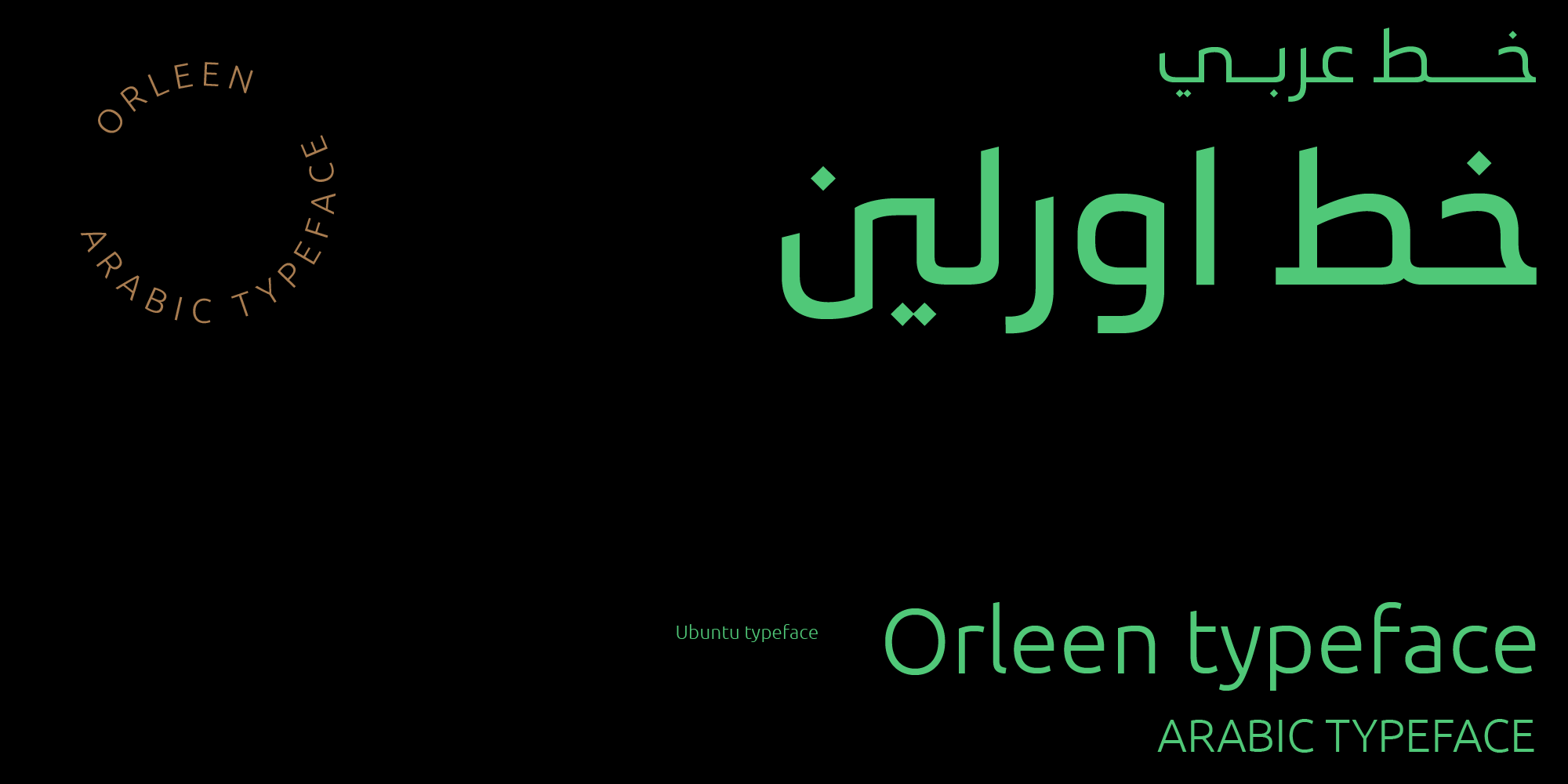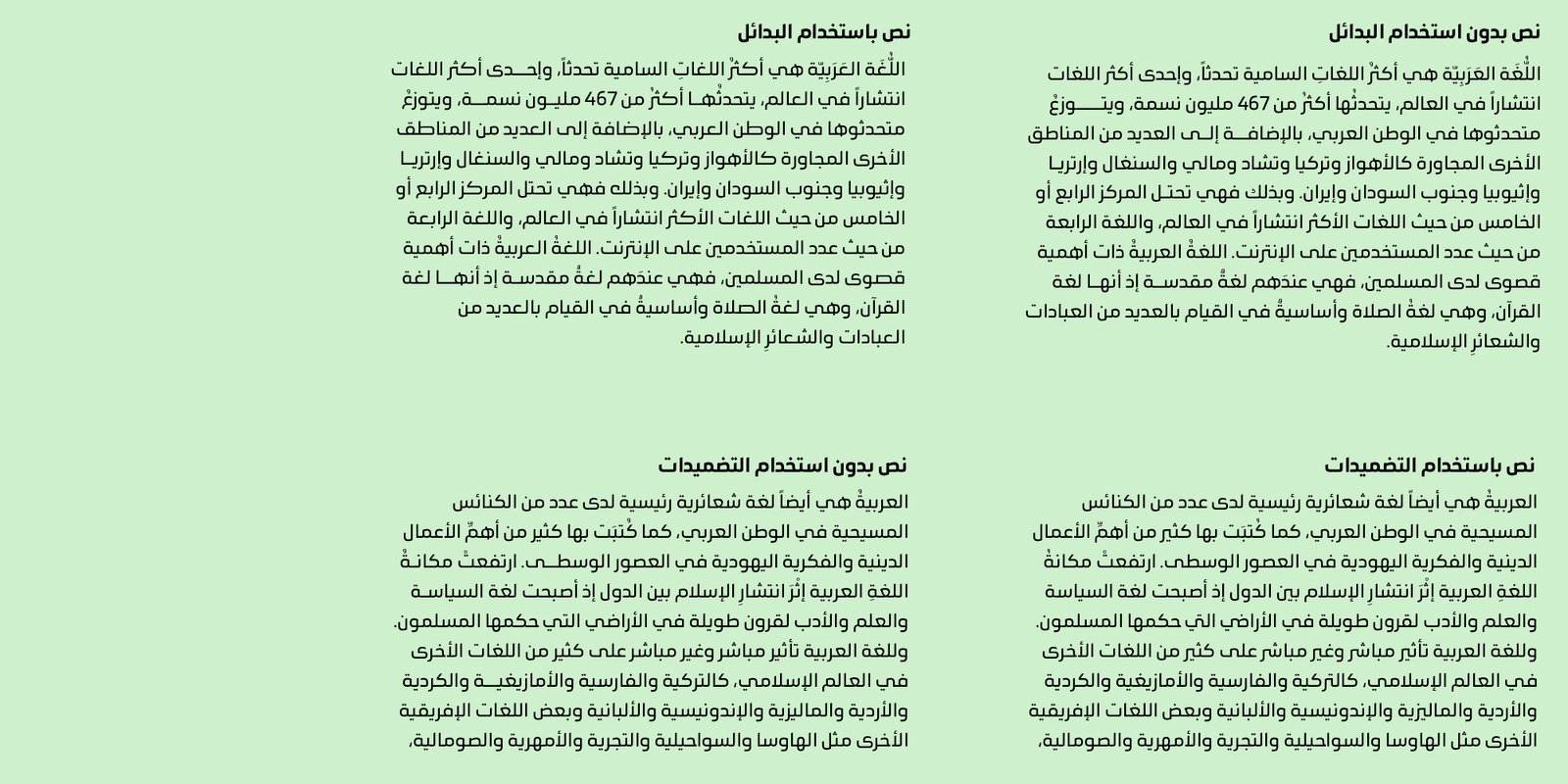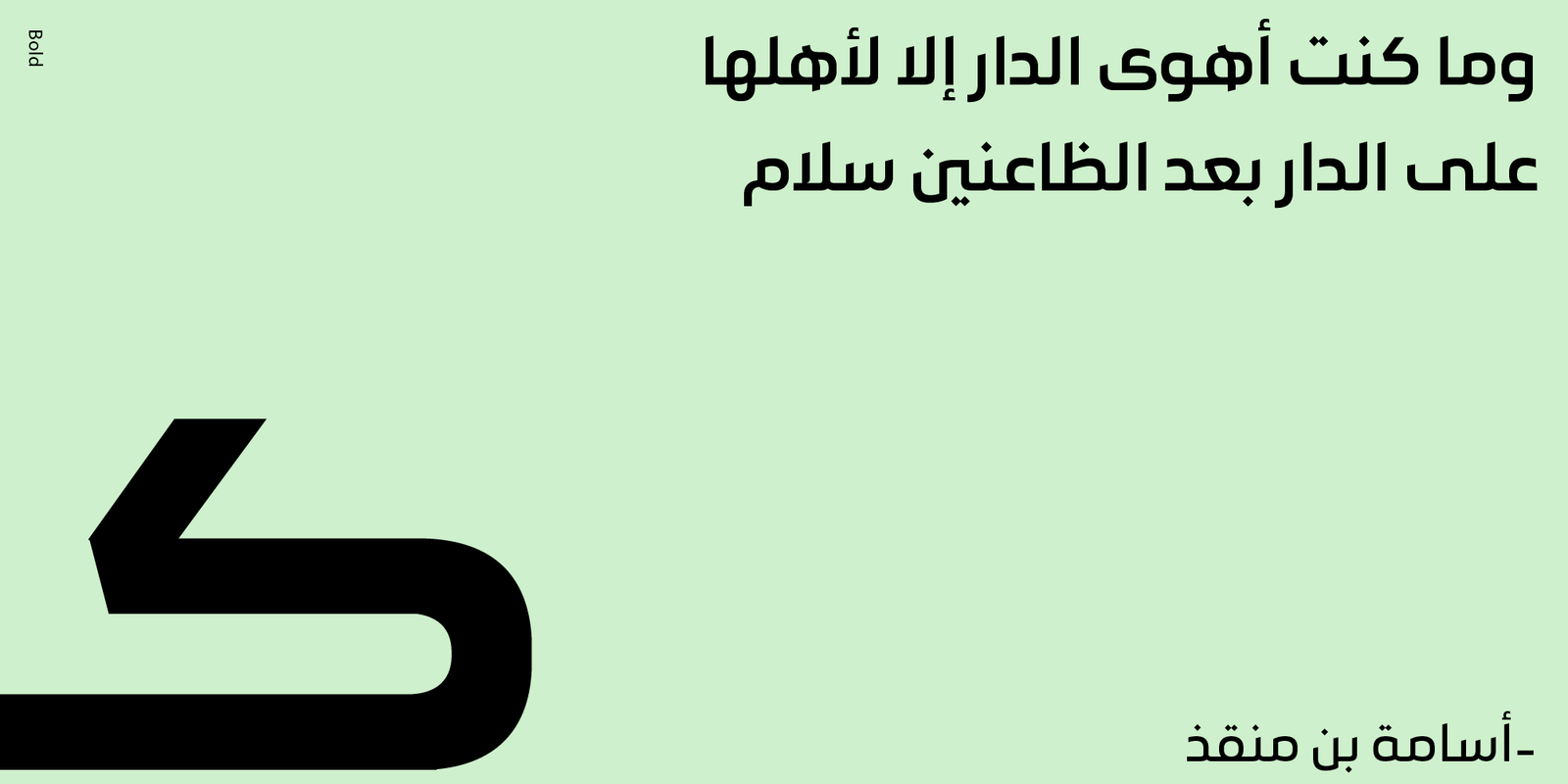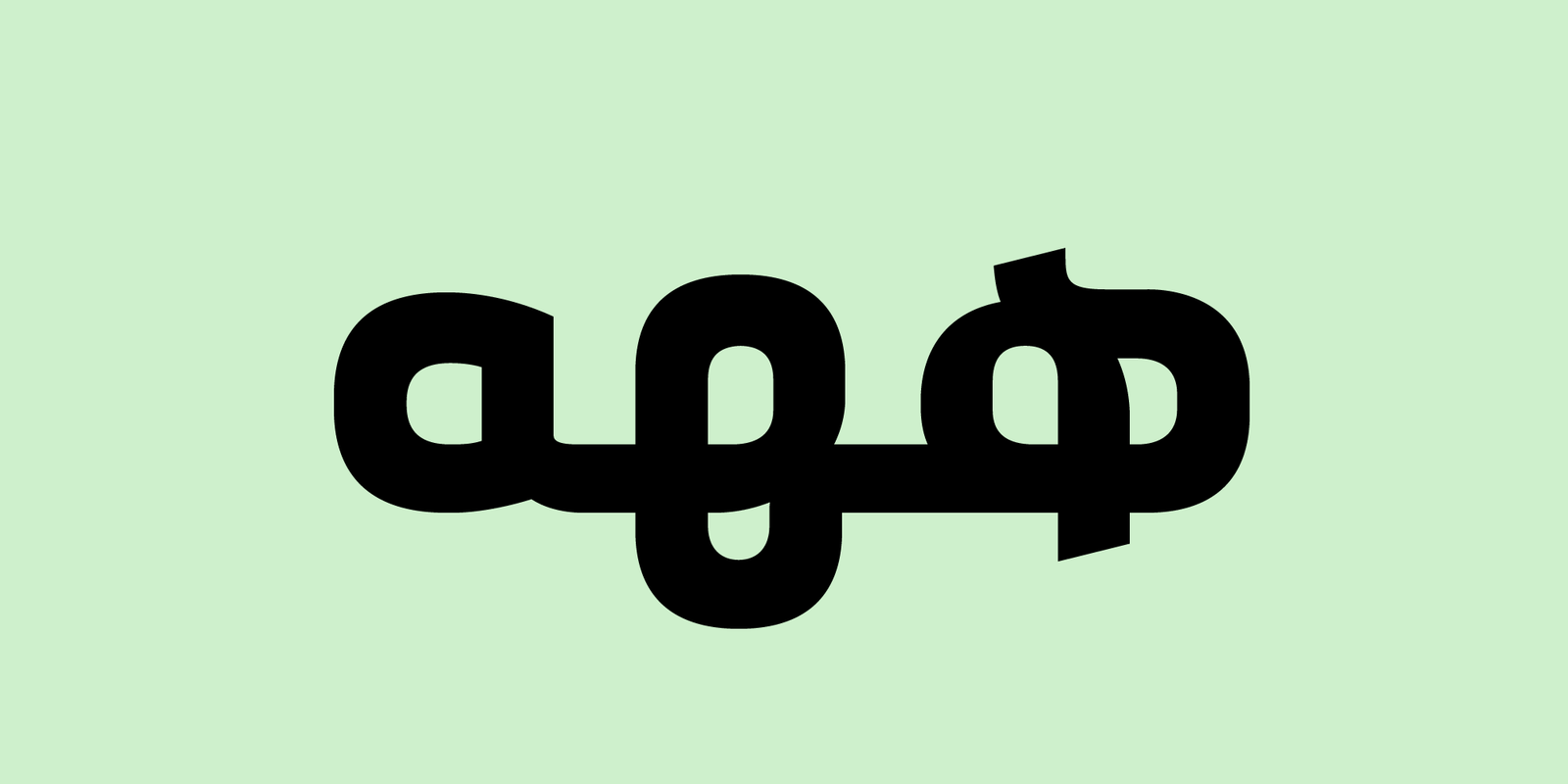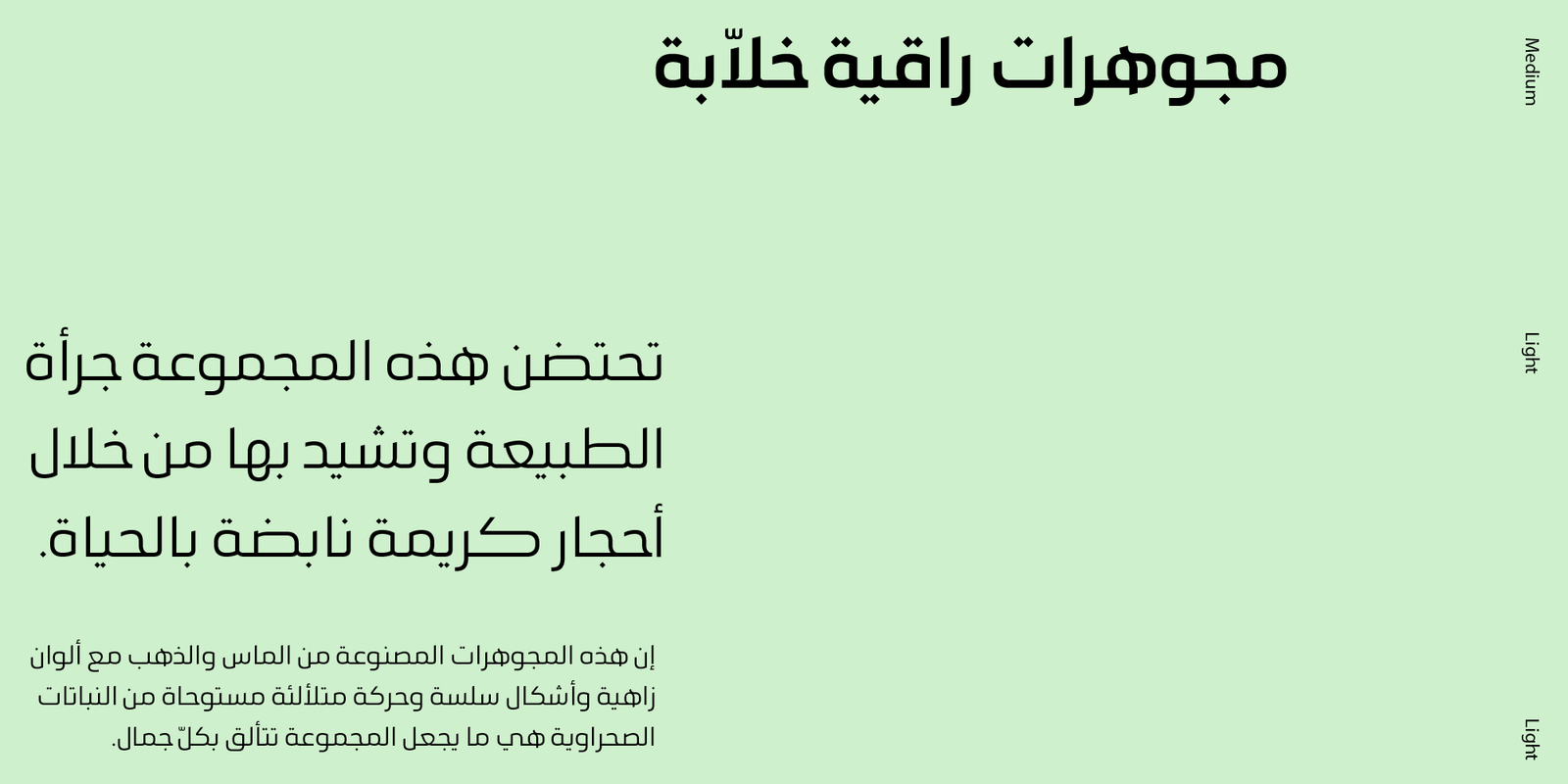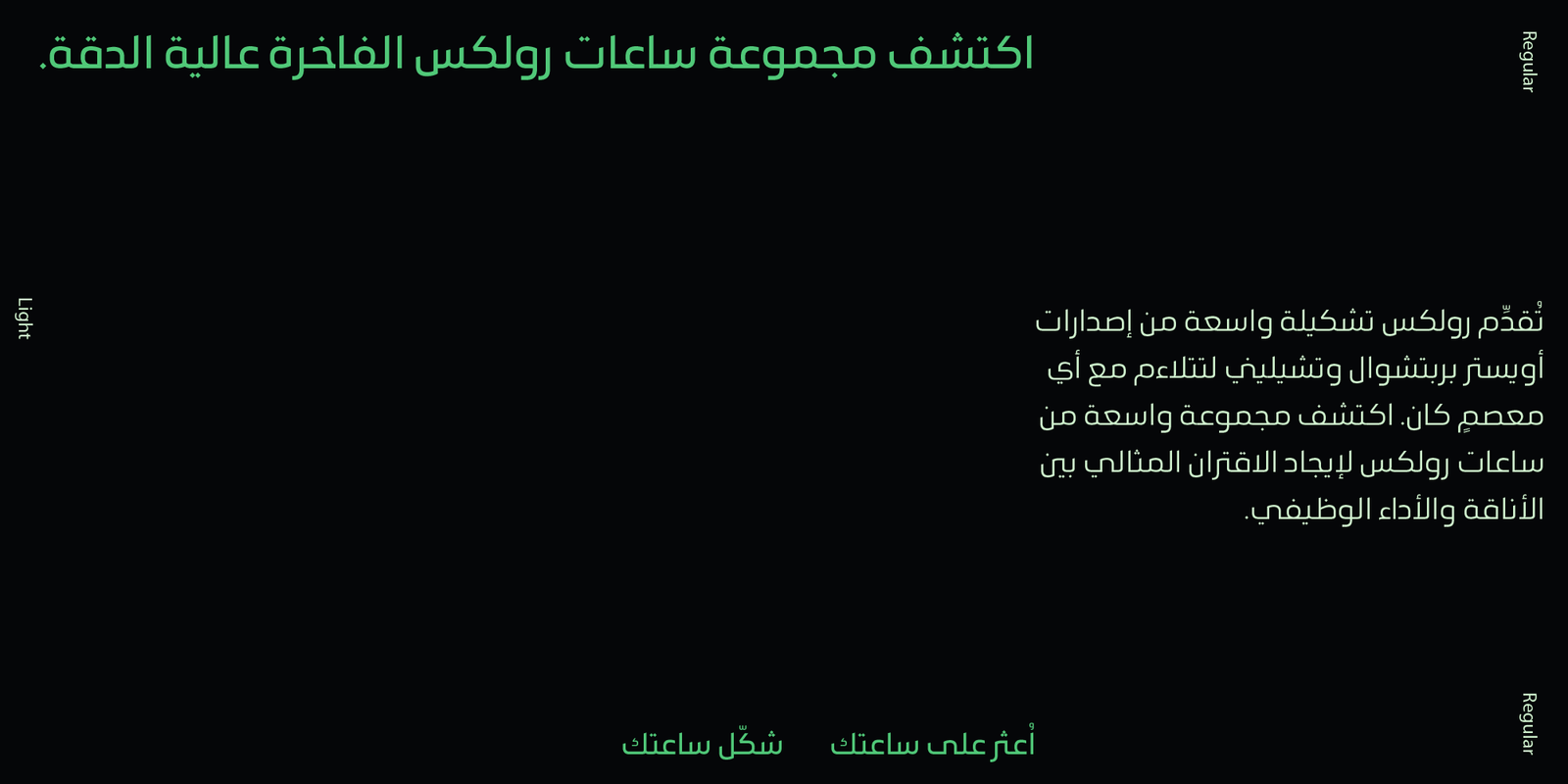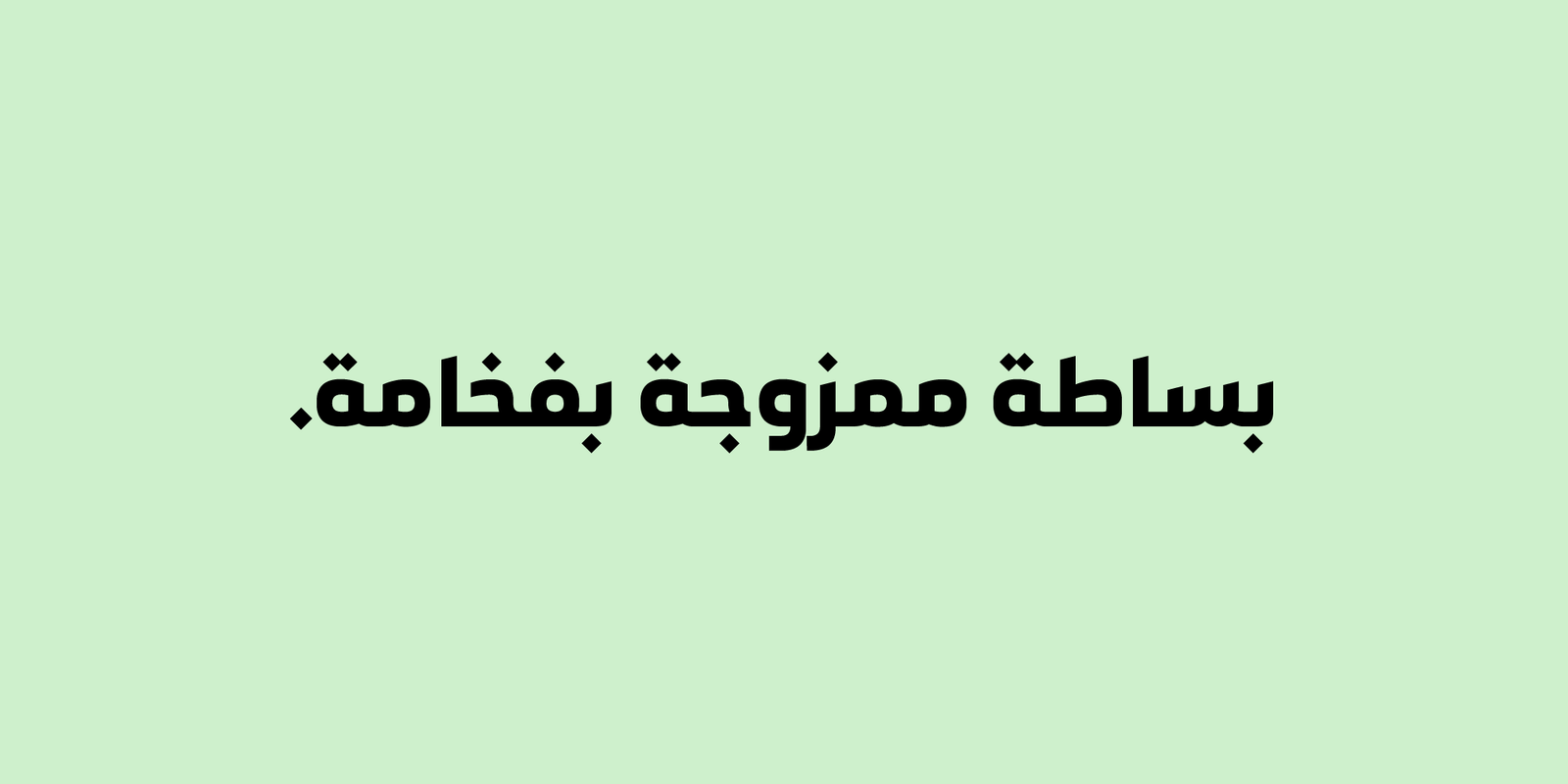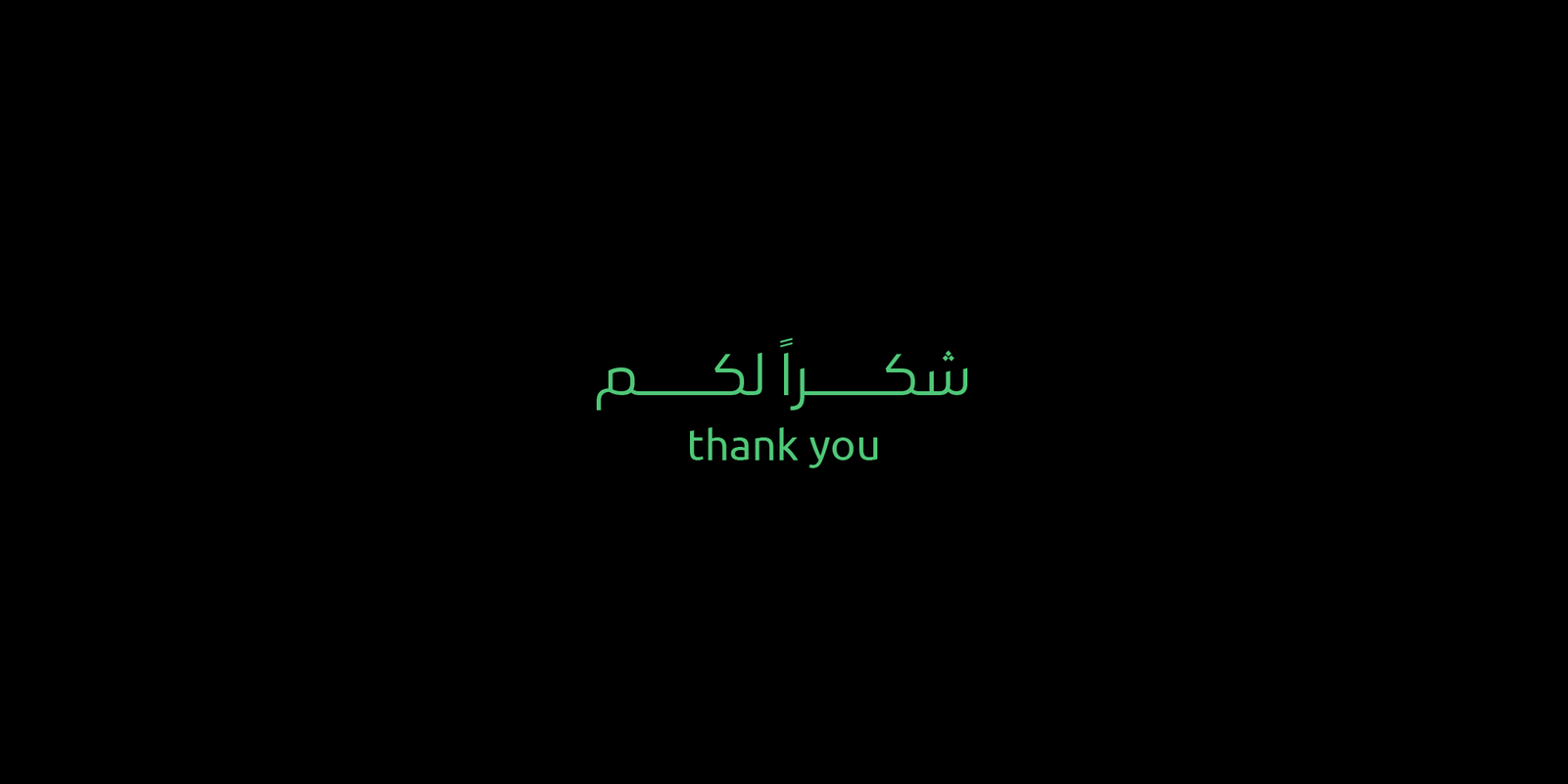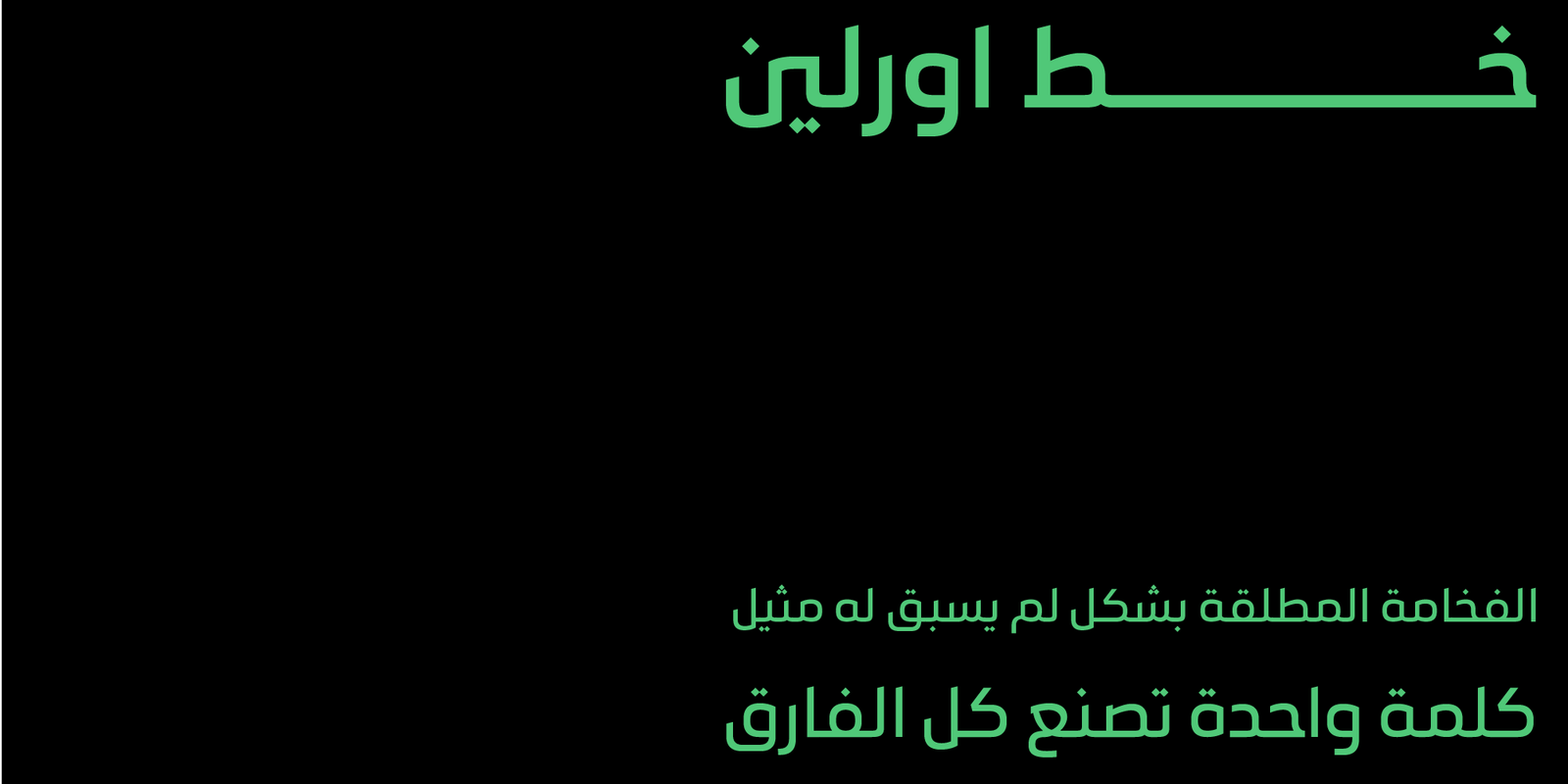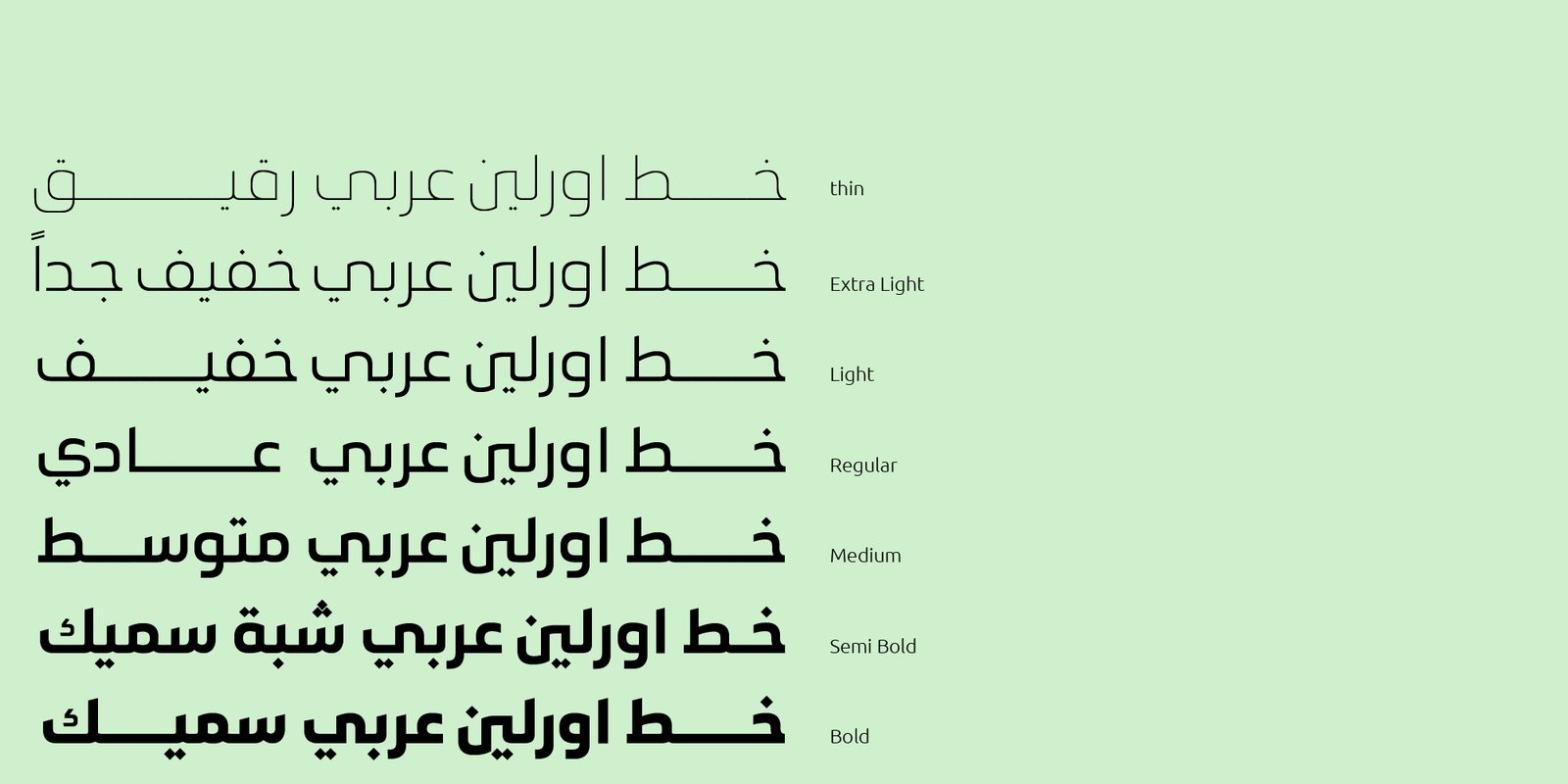
Orleen Arabic typeface – خط اورلين العربي
Orleen is an Arabic typeface from the Lina type family, with an elegant and modern feeling. It’s luxurious, strong, legible, Clear, Simple, and contemporary. With a handful set of OpenType features and alternatives.
The design is inspired by the Kufic calligraphic style and influenced by the Naskh style.
Lina type family consists of Lina soft, Lina sans, and Lina round. and Orleen
Orleen has a wide range of use possibilities headlines, logotypes, branding, books, magazines, motion graphics, and use on the web and Tv.
Orleen consists of 7-weight versions from thin to bold.
أورلين هو خط عربي من عائلة الخطوط لينا، يتميز بإحساس أنيق وعصري. فاخر، قوي، واضح، بسيط ومعاصر. يحتوي على مجموعة من ميزات OpenType والبدائل.
التصميم مستوحى من الخط الكوفي ومؤثر بالخط النسخي.
تتكون عائلة خطوط لينه من لينه سوفت، لينه سانس، ولينه راوند، واورلين.
يتمتع اورلين بمجموعة واسعة من إمكانيات الاستخدام مثل العناوين، الشعارات، العلامات التجارية، الكتب، المجلات، الرسومات المتحركة، والاستخدام على الويب والتلفاز.
يتكون اورلين من 7 أوزان مختلفة من الرفيع إلى العريض.
اللغات : العربية فقط، بلا حروف لاتينية